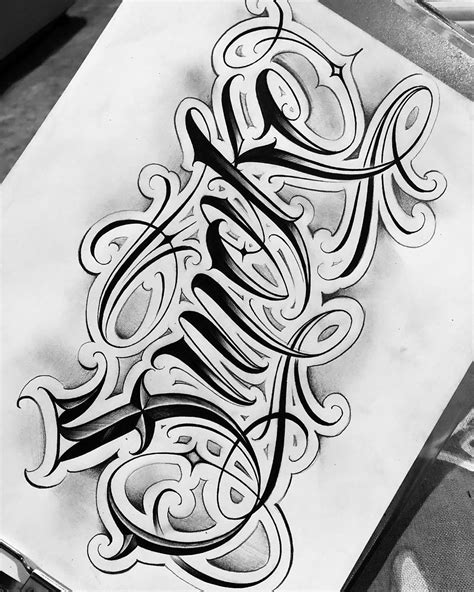
Tattoo Font Generator, 1001 free fonts offers the best selection of tattoo fonts for windows and macintosh. Looking for cursive tattoo fonts?
Choose from tattoo letter themed fonts such as blackletter font, lupus blight font, tribal font and tribal garamond font. There is no app (at least in our knowledge) with an inbuilt text formatting option to change the fonts to look like cursive fonts. Our simple text generators allow you to your text in horizontal & vertical writing images with various japanese fonts for your kanji tattoo design,logos,website design,judo/karate belts and so on.
Without script fonts, which is a part of the world of calligraphy, a large portion of available tattoo designs wouldn’t exist! Choose from 1000's of free tattoo design templates that you can edit yourself online for free. There is no app (at least in our knowledge) with an inbuilt text formatting option to change the fonts to look like cursive.
To generate your custom text. It is a free online letter generator program so you can create your own cool tattoo letters with your custom text. After creating your unique tattoo design using a tattoo font you can print or download it. That said, many tattoos share common design features, including those using text. Picking a font for your next.
Fonts for tattoos, drawings and decorations | font & text generator. Select a font from our collection of free tattoo fonts, enter text for your tattoo, choose color and then download your image or print it. You can also set the curve, add text, image, angels and quotes as well. Lettering styles include tribal, traditional sailor, blackletter, fancy, cursive, script,.
Create text graphics with tattoo fonts. With our online font generator for tattoos, you’ve got over 150 fonts to choose from, instantly! You can also choose custom font and background colors. Combine tattoo's, search for tattoo elements, add text change colors and more. Picking a font for your next tattoo is a very important decision.